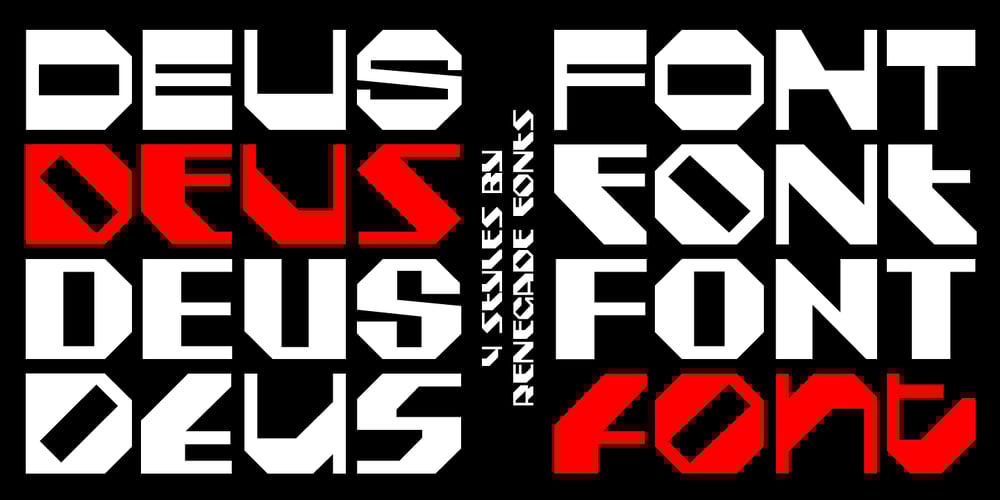
Deus Font Family was designed by Jan Charvát and published by Renegade Fonts. Deus contains 8 styles and family package options. Deus is when type design is brought to extreme. It tries to answer the question whether you can design all glyphs in one axis of stress. It does not try to be all purpose, useful at all sizes, legible or readable and most of all it does not try to be neutral. It has its own style you either accept or not. But if you do so, it has many great stuff inside. Every glyph has the same width across four masters, so you can change the style in one title or even make an animation out of that. It also has some cool animated emojis, so make sure you take all four styles!Deus has two sets of styles. “Deus” that has an expanded glyph set, and “Deus Basic” that comes with a limited glyph set. You can play around with “Deus Basic” since you get it for free, then fall in love with this font family and go for the full version.